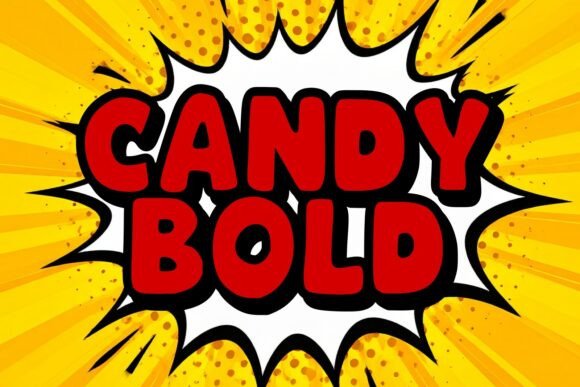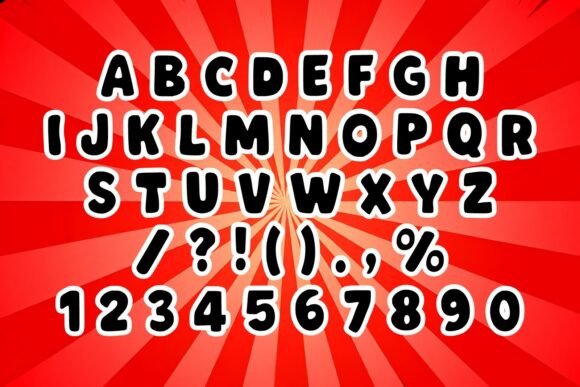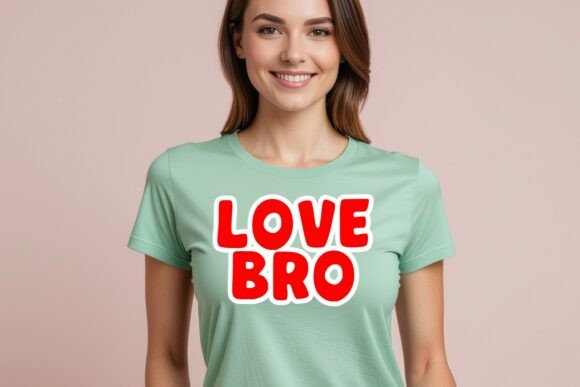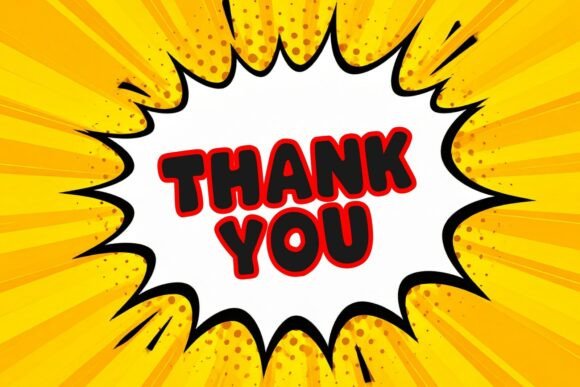
Candy Bold Font: The Sweetest Addition to Your Design Collection
Are you looking for a font that can add a dash of fun and playfulness to your designs? Look no further than Candy Bold, a comic-style display font that’s sure to make your projects stand out. With its thick, rounded letterforms and bold visual impact, Candy Bold is the perfect choice for designers and crafters who want to create eye-catching and engaging designs.
Inspired by Cartoon and Pop Art Typography
Candy Bold is inspired by the vibrant and dynamic world of cartoon and pop art typography. Its unique design is reminiscent of classic comic books, colorful posters, and playful packaging. This font is the perfect blend of nostalgia and modernity, making it an excellent choice for designers who want to create designs that are both fun and trendy.
Perfect for Kids Designs, Comics, and Posters
Candy Bold is an excellent choice for designs that cater to kids and families. Its cheerful and energetic style makes it perfect for children’s books, educational materials, and kids’ party invitations. The font’s bold and playful design also makes it an excellent choice for comics, graphic novels, and posters.
Use Candy Bold for Playful Branding and Children’s Projects
Candy Bold is not just limited to kids’ designs; it’s also perfect for playful branding and creative projects. The font’s friendly and approachable style makes it an excellent choice for logos, packaging, and merchandise. Whether you’re designing a brand identity for a children’s clothing line or creating a fun and quirky logo for a kids’ play center, Candy Bold is the perfect font for the job.
Key Features of Candy Bold Font
- Thick, rounded letterforms: Candy Bold features thick, rounded letterforms that give it a bold and playful look.
- Comic-style design: The font’s comic-style design makes it perfect for comics, graphic novels, and posters.
- Cheerful and energetic style: Candy Bold’s cheerful and energetic style makes it perfect for kids’ designs, playful branding, and creative projects.
- Bold visual impact: The font’s bold visual impact makes it perfect for designs that need to stand out.
How to Use Candy Bold Font in Your Designs
- Pair it with a simple font: Pair Candy Bold with a simple font to create a striking contrast.
- Use it for headings and titles: Use Candy Bold for headings and titles to add a bold and playful touch.
- Experiment with colors: Experiment with different colors to find the perfect combination that matches your brand or design.
Candy Bold font is a fun and playful comic-style display font that’s perfect for designers and crafters who want to add a dash of fun and playfulness to their designs. With its thick, rounded letterforms, bold visual impact, and cheerful and energetic style, Candy Bold is the perfect choice for kids’ designs, comics, posters, logos, packaging, stickers, merchandise, and social media graphics. So why wait? Download Candy Bold font today and start creating your own sweet designs!